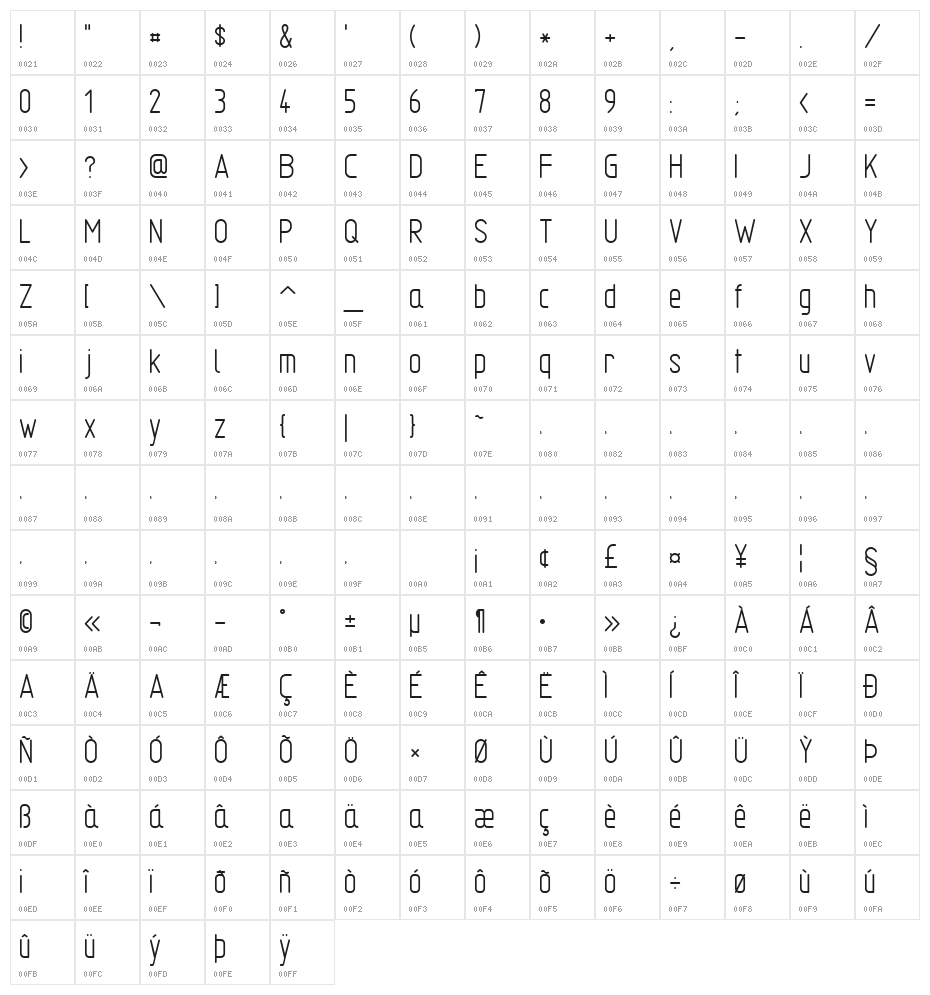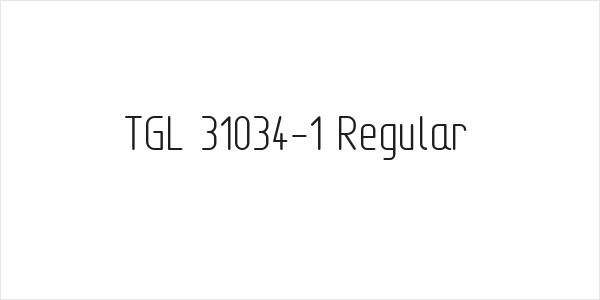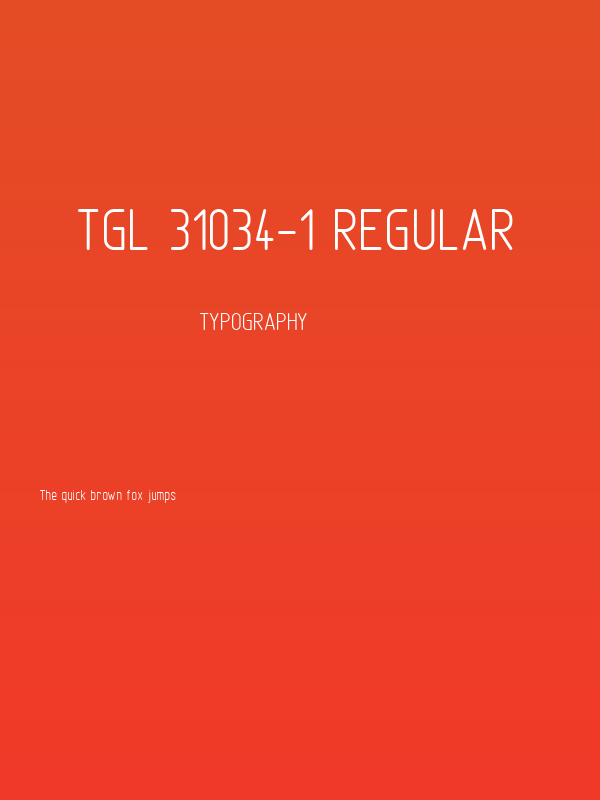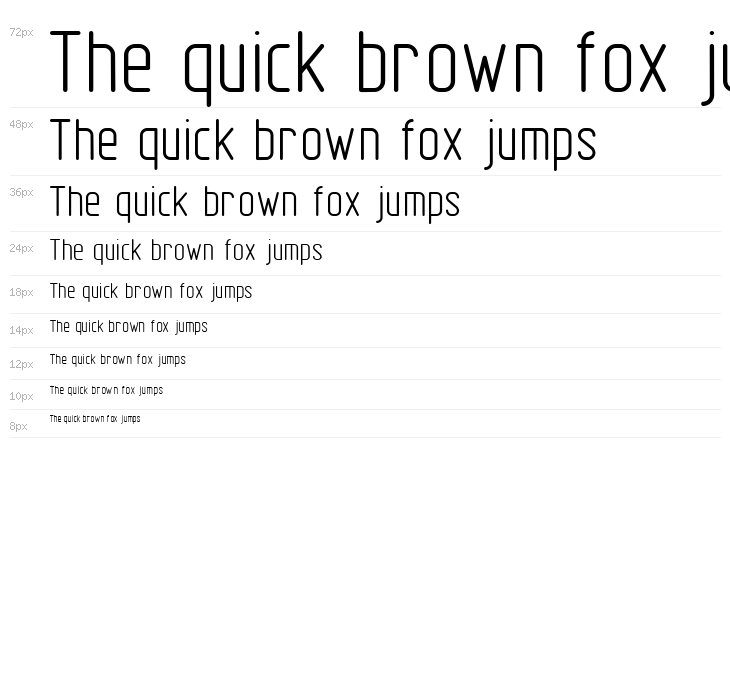
TGL 31034-1 Regular Font
TGL 31034-1 Regular Description
This font features a clean and modern design with a geometric structure. The characters are uniformly shaped with rounded edges, giving it a friendly and approachable appearance. The uppercase and lowercase letters maintain a consistent height, contributing to a balanced and harmonious look. The numerals and special characters are designed to match the overall style, ensuring a cohesive appearance across all elements. The font's simplicity and clarity make it highly legible, suitable for various applications where readability is key.
Proposed ProjectsIdeal for digital interfaces, signage, branding, and editorial design.